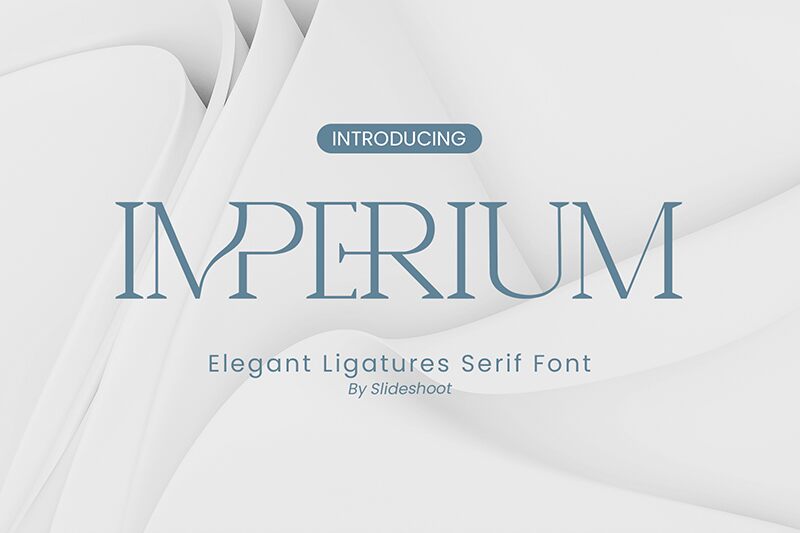
Imperium
Imperium font is a free serif font developed by Ahmad Riqi. Its classic style and immersed detail give off a professional elegant feel, one that reminds us of the typography used by ancient Latin authors in their books. Each letter has its individuality, which adds to the glamour of designs.